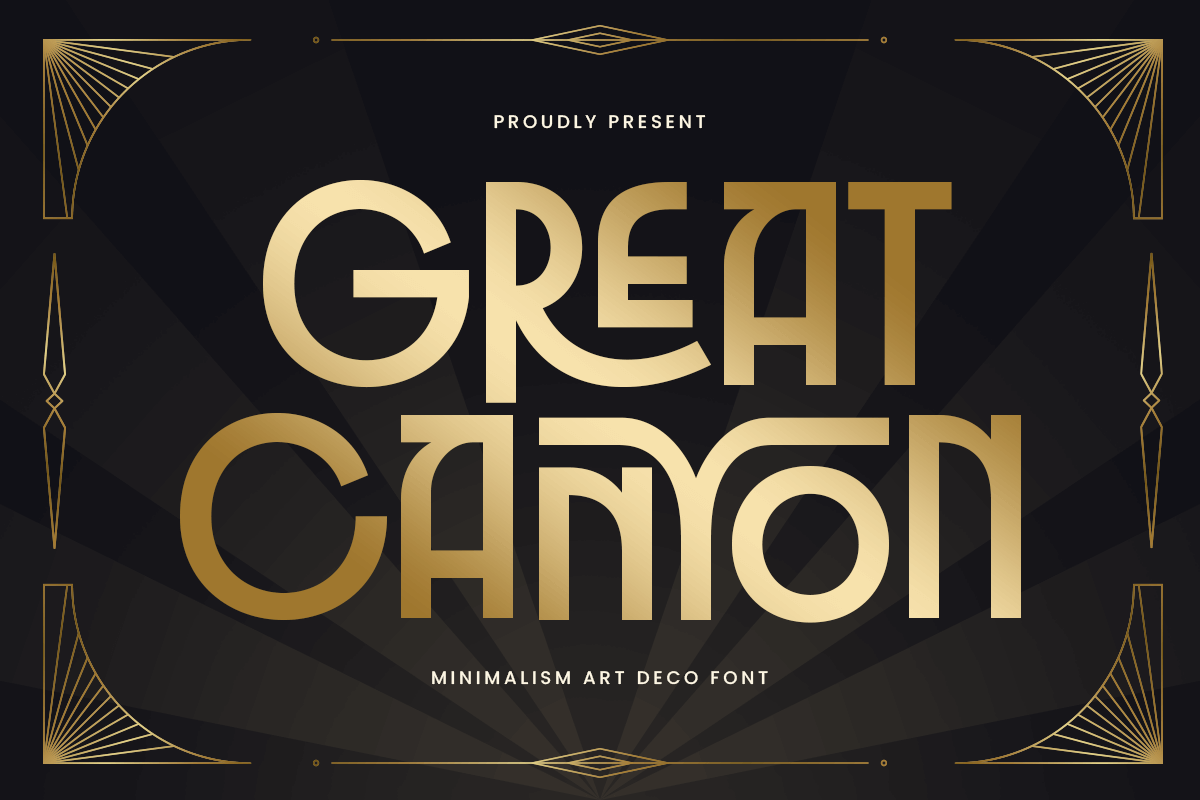
Great Canyon
-Fashion Brand Art Deco Font
Great Canyon - Fashion Brand Art Deco Font
GREAT CANYON is a fashion brand art deco font inspired by the golden era of luxury design and timeless elegance. Combining vintage aesthetics with modern refinement, this typeface is ideal for fashion branding, editorials, packaging, invitations, and creative campaigns that demand sophistication.
With sleek geometric details and high-contrast strokes, GREAT CANYON embodies the iconic Art Deco style — bold yet graceful, structured yet decorative. It captures a perfect balance between nostalgia and modernity, making it a perfect choice for fashion labels, jewelry branding, and upscale visual identities.
Whether used in print or digital media, GREAT CANYON delivers a luxurious statement that enhances brand storytelling and visual appeal. Pair it with minimalist sans-serifs or textured backgrounds for an editorial-worthy presentation.
GREAT CANYON – Fashion Brand Art Deco Font Features
• Elegant Art Deco design with strong geometric structure
• Perfect for fashion, editorials, branding, and packaging
• Luxury-inspired details for timeless and premium aesthetics
• Ideal for logos, invitations, and advertising layouts
• OpenType features for advanced design control
Embrace timeless elegance with GREAT CANYON – the ultimate Art Deco fashion font for luxurious and iconic branding. ✨